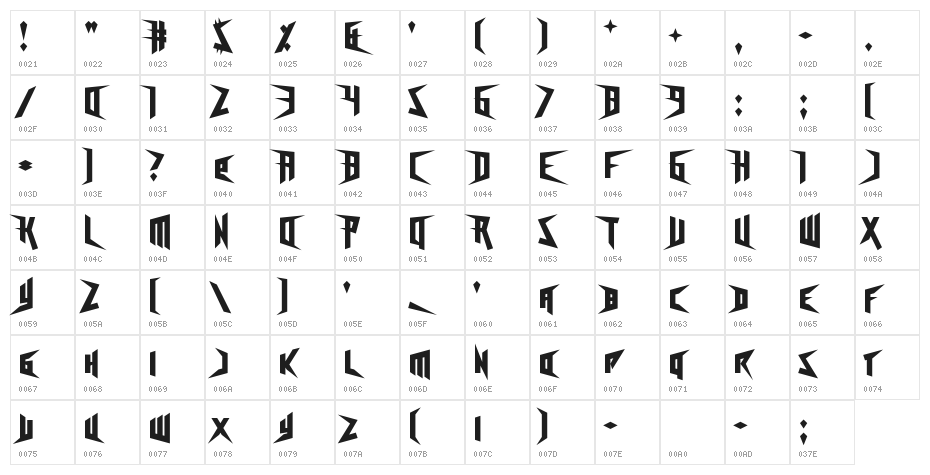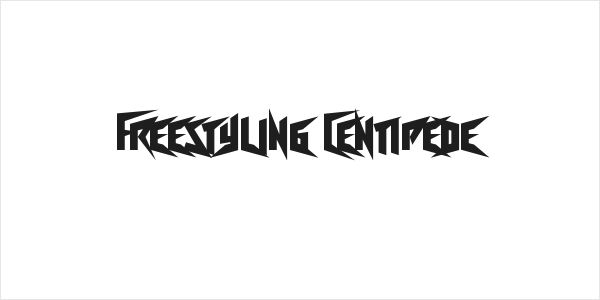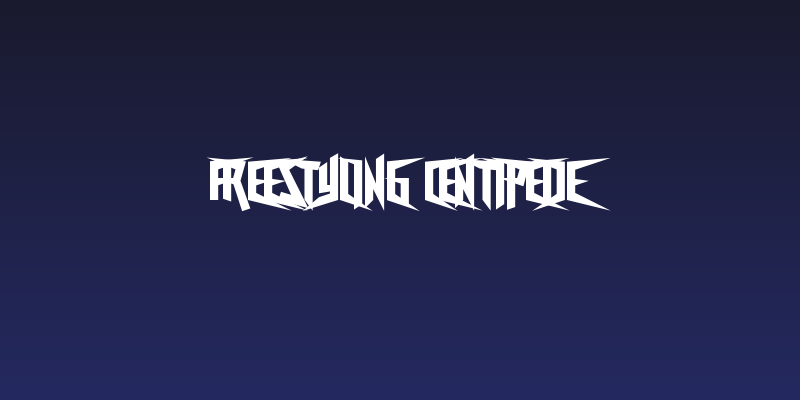
Freestyling Centipede Font
Freestyling Centipede Description
This font features a bold and aggressive design with sharp, angular edges and a geometric structure. The characters are highly stylized, giving off a futuristic and edgy vibe. Each letter is crafted with precision, creating a sense of movement and energy. The uppercase and lowercase letters maintain a consistent style, while the numbers and special characters complement the overall aesthetic. This font is perfect for projects that require a strong visual impact and a modern, unconventional look.
Proposed ProjectsIdeal for album covers, video game titles, posters, and branding that requires a bold statement.